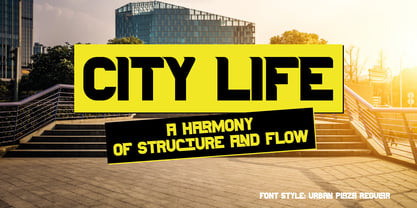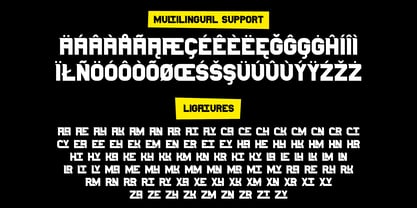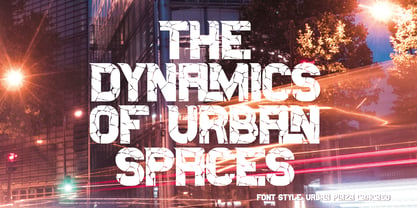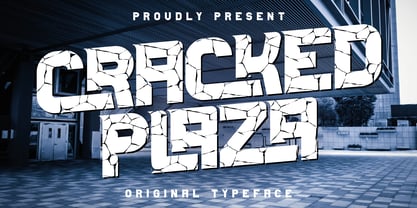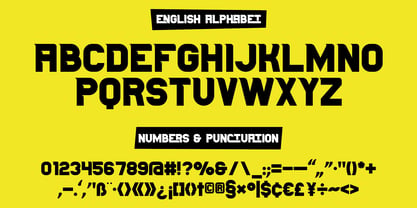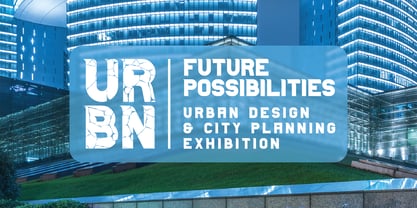
Cracked Plaza
by Vozzy
Introducing the original display font "Cracked Plaza" – a striking, handcrafted typeface made to stand out. This font includes extended characters, punctuation marks, and full multilingual support to suit a wide range of creative projects. It also features a rich set of stylistic ligatures to add extra flair to your designs. Whether you're working on posters, flyers, branding, or T-shirt graphics, this font brings personality and clarity to every layout. "Cracked Plaza" was designed with attention to detail and a love for expressive typography. Try it out and give your work a unique, custom-made feel.
Designers: Oleg Voznyy
Foundry: Vozzy
Cracked Plaza